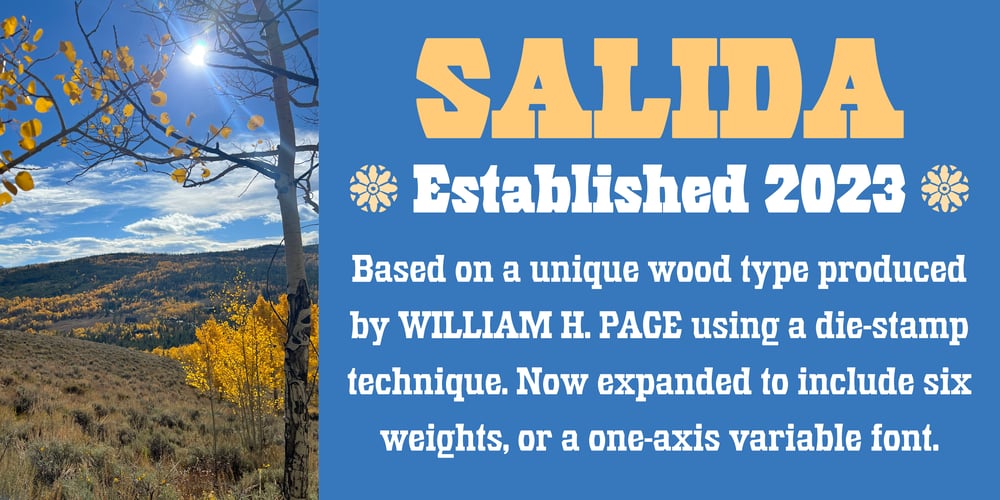
Salida
Salida font
Salida Font Family was designed by Steve Matteson and published by Matteson Typographics. Salida contains 6 styles and family package options. Salida is a reimagining of William Page’s Series 504, a wood type created in 1887. Named for a town in Colorado on the Arkansas River, Salida is a strong and rustic display font reflecting the rugged landscape of the area. Salida is useful for impactful headlines, logos, packaging and signage.